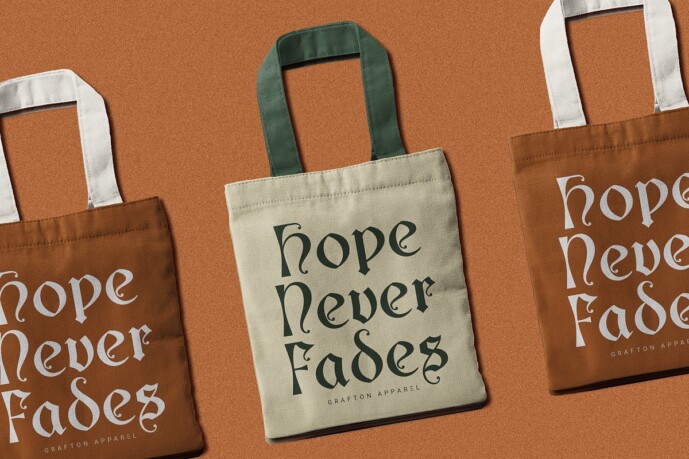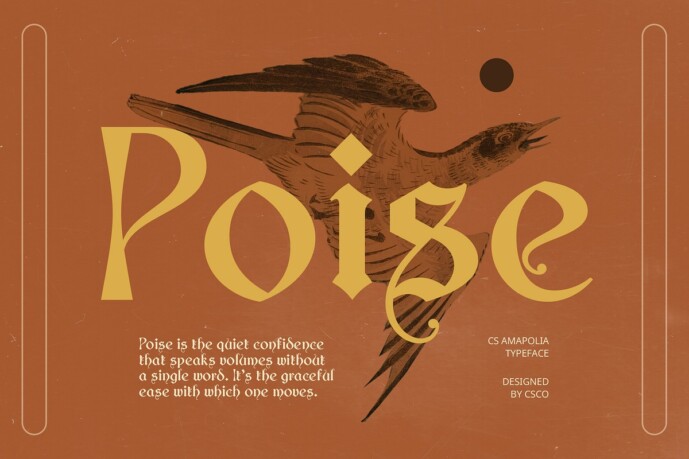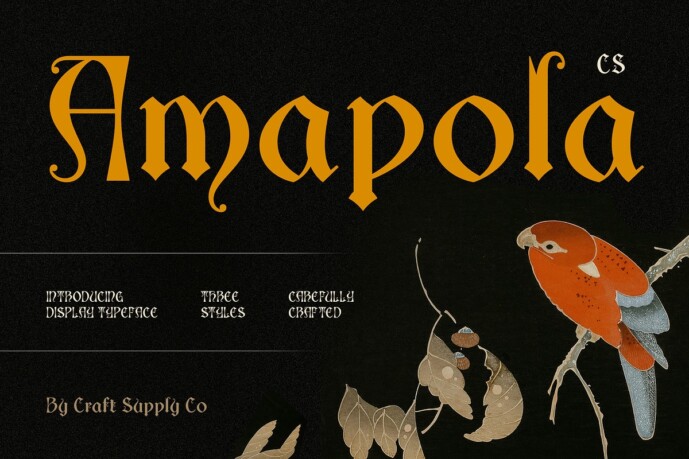
CS Amapola Font
CS Amapola Font is a display font that blends the classic curves of uncial letterforms with a bold gothic touch, creating an eye-catching and historically inspired design. Each letter showcases smooth, curved strokes characteristic of the uncial style, while gothic influences add depth and a hint of mystery, evoking strength and tradition.
Ideal for Historical and Fantasy Themes With its antique and formal design, CS Amapola is perfect for projects inspired by historical or fantasy themes. It suits fantasy book covers, vintage-inspired logos, and decorative projects that call for a touch of medieval charm. Whether used for editorial layouts, branding, or artistic displays, this font adds a classic, authentic feel to every design.
Captivating and Versatile Style This gothic uncial font carries a strong visual presence that evokes a sense of tradition and mystery. The intricate curves and formal character make CS Amapola an excellent choice for designers seeking to add depth and historical allure to their projects. Its unique style is ideal for applications requiring a touch of old-world elegance with a modern twist, making it versatile yet rooted in authenticity.